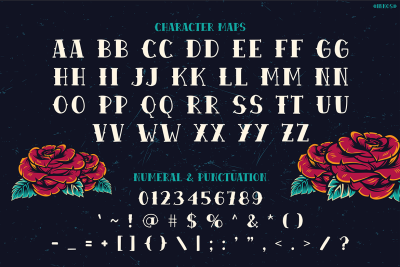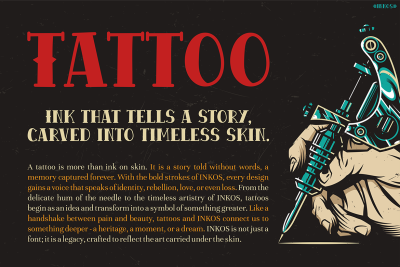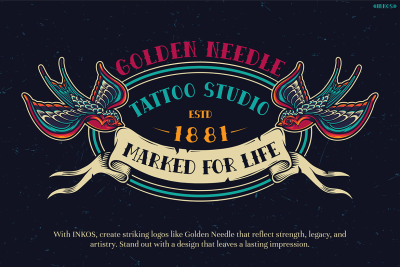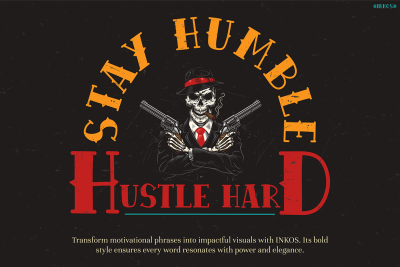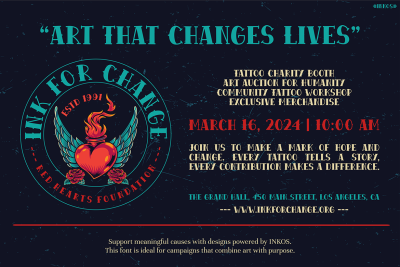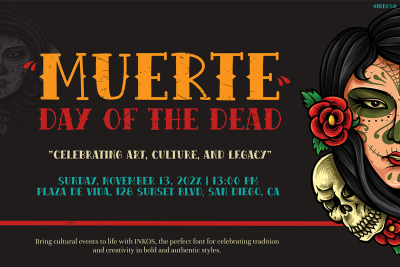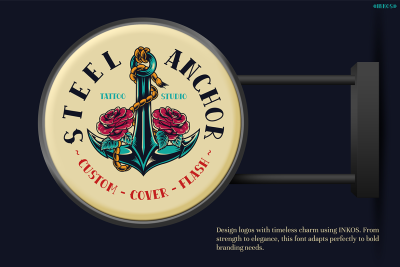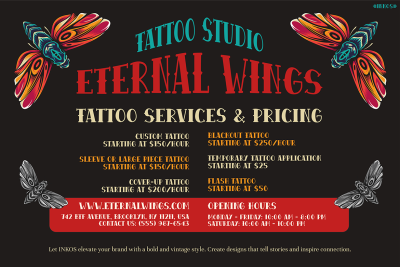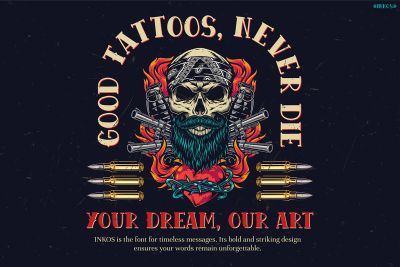
The tattoo font INKOS is a bold and dramatic typeface that is designed to make a strong statement. With its sharp, angular edges and intricate details, it perfectly captures the rebellious and artistic essence of tattoo culture. Moreover, the deep red tones and Gothic-inspired design lend it a timeless yet edgy appearance, making it ideal for projects that require a balance between tradition and modernity. In addition to its striking visual elements, the floral motifs, particularly the roses paired with the skull, evoke themes of life, death, and beauty, creating a visually compelling harmony. Therefore, INKOS is not just a typeface but also a storytelling element that adds depth to your design.
Furthermore, the INKOS tattoo font is crafted with versatility in mind. It seamlessly blends into designs for apparel, signage, posters, and branding. For instance, its vintage yet contemporary style ensures it can adapt to a variety of artistic expressions. Whether you’re aiming to design something fierce or romantic, this font has the flexibility to fit your creative vision.
Tattoo Font INKOS Ideal For
The tattoo font INKOS is perfect for individuals and brands that want to channel a bold, artistic, and alternative aesthetic. In particular, it appeals to:
- Tattoo Artists and Studios: With its intricate details and Gothic undertones, this font works excellently for studio branding, tattoo design mockups, and promotional materials.
- Apparel Designers: Those creating edgy, alternative fashion lines can utilize INKOS to add a unique flair to t-shirts, hoodies, and accessories. Additionally, it helps create a strong visual identity for brands targeting alternative subcultures.
- Musicians and Bands: Perfect for album covers, posters, and merchandise for rock, metal, punk, or alternative bands. By using INKOS, artists can communicate their creative identity effectively.
- Graphic Designers: Ideal for logos, posters, or custom illustrations that require a striking and memorable typeface. As a result, it enhances the impact of creative projects.
- Event Planners: Use this font for themed events, especially those with Gothic, retro, or tattoo-inspired aesthetics. It brings a unique charm that elevates invitations, banners, and other event materials.
In summary, its unique design makes it an excellent choice for creatives who want to convey passion, intensity, and artistry in their work. Therefore, if youโre looking for a font that combines boldness with sophistication, INKOS is the perfect option.